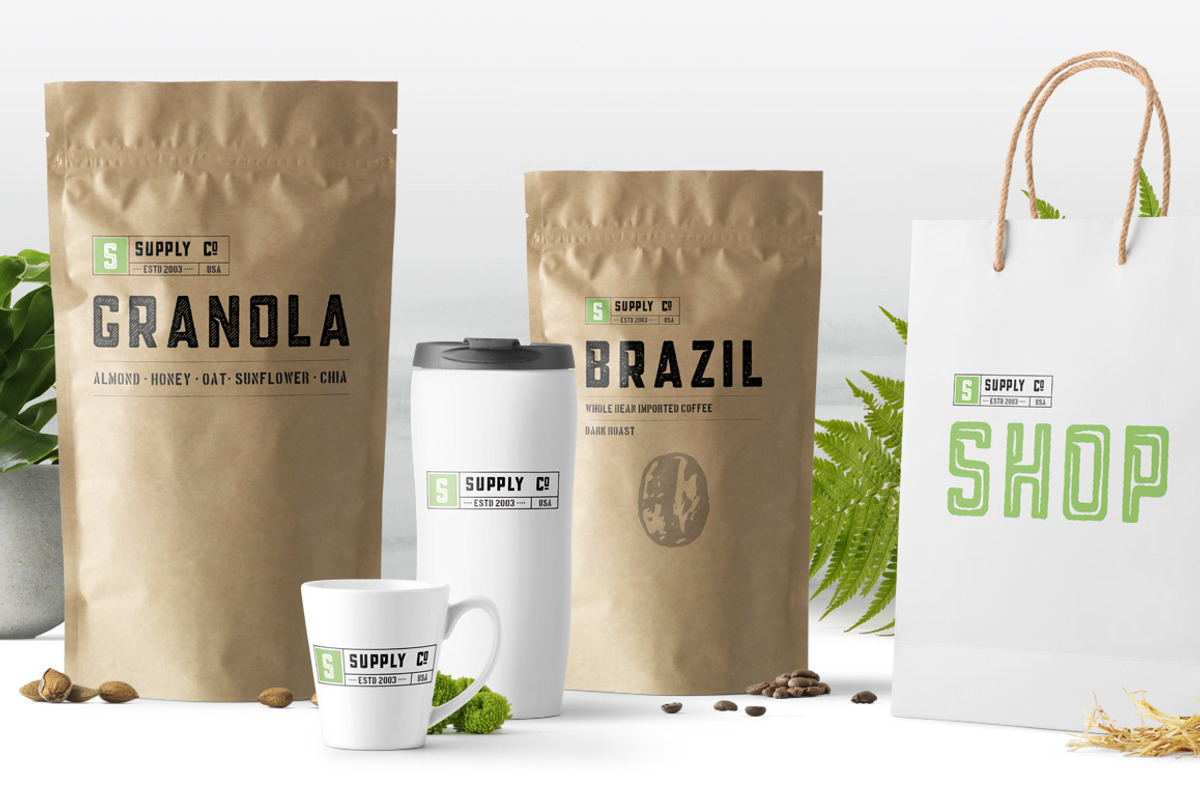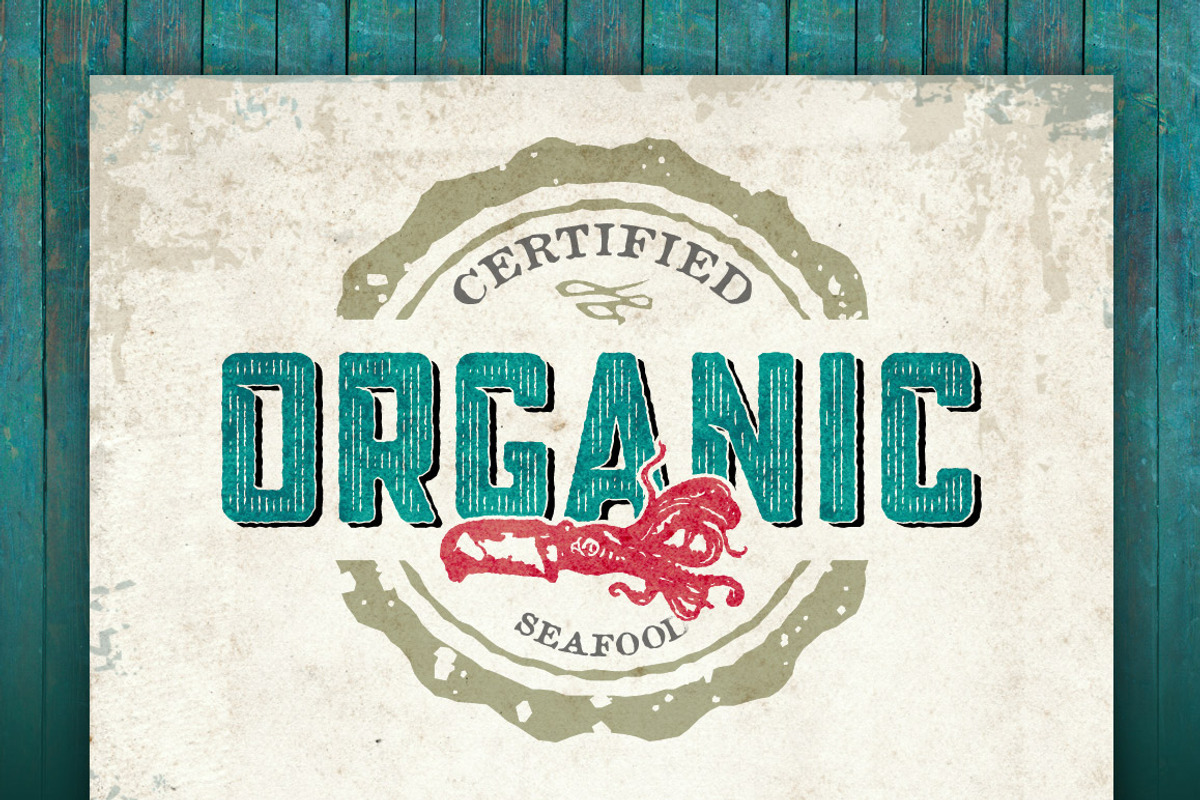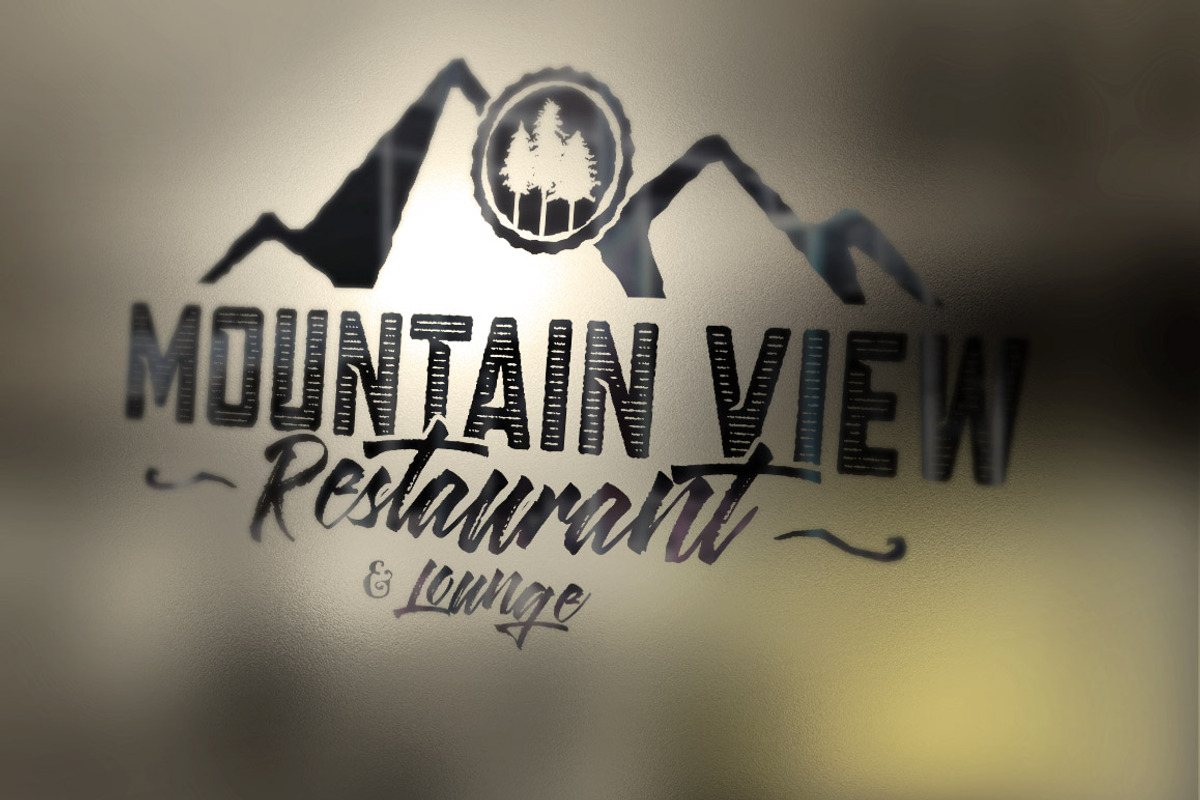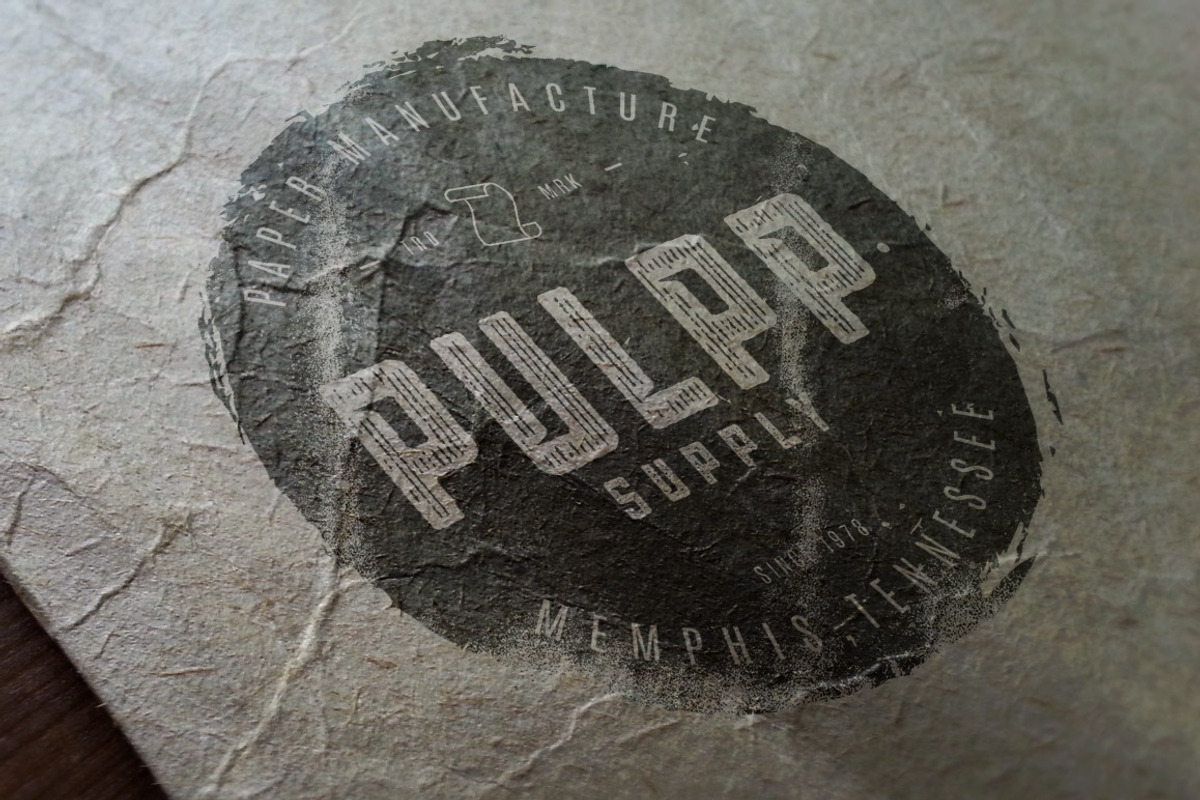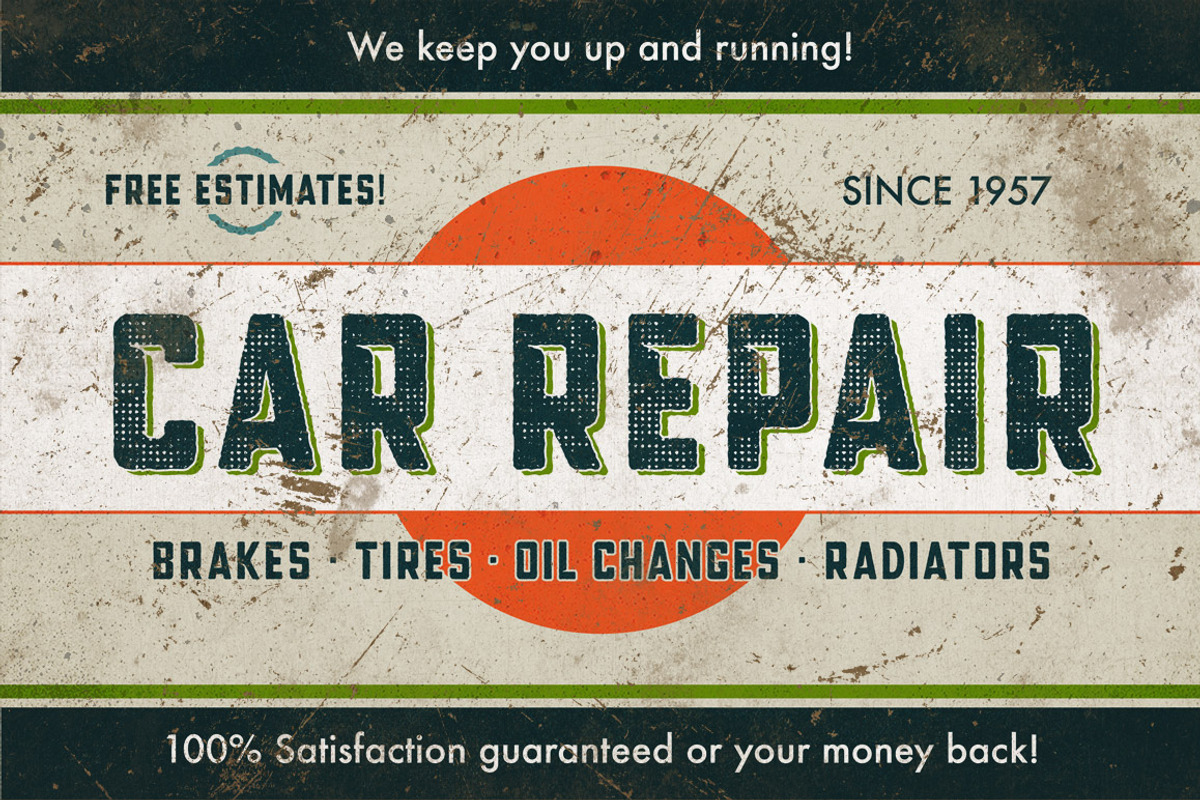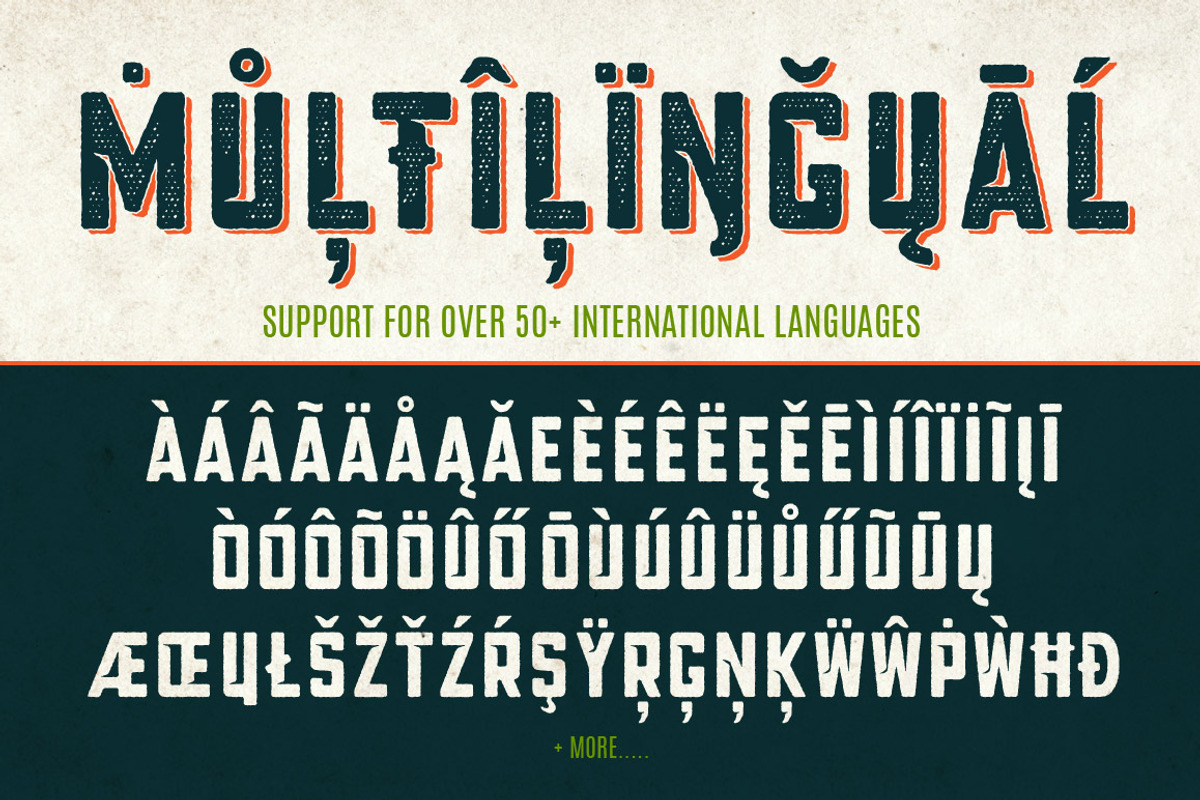
Blakstone Display Family
Blakstone is a useful Distressed/Vintage Display family of 25 fonts, perfect for your retro designs!
Borne of geometry, found-type and a genuine love of texture, Blakstone has a lot to offer the letterpress style type genre. With 25 styles including hatches, halftones, grunge, linen, inline, shadow, fills, and outlines, Blakstone becomes useful as a layered type system. Combine styles to control colors on different layers to achieve your desired effect or just use a single style to keep it simple.
Blakstone is full of open-type features including ligatures, discretionary ligatures, superscript numbers, subscript numbers, and automatic open-type fractions. Another great feature of Blakstone is its support for 130 International languages and dialects.
Blakstone has many uses in the design world including signage, branding, invites and cards, clothing design, the music industry, restaurant and grocery signage, coffee shops, the list goes on. Blakstone has a texture for any occasion.
Each font has 473 Glyphs including ligatures, discretionary ligatures, superscript numbers, subscript numbers, and automatic open-type fractions.
Font Styles included: (25)
- Blakstone
- Blakstone Inline
- Blakstone Hatch One
- Blakstone Hatch Two
- Blakstone Hatch Three
- Blakstone Halftone One
- Blakstone Halftone Two
- Blakstone Halftone Three
- Blakstone Halftone Four
- Blakstone Grunge Grid
- Blakstone Linen
- Blakstone Printed One
- Blakstone Printed Two
- Blakstone Outline
- Blakstone Outline Inline
- Blakstone Outline Hatch One
- Blakstone Outline Hatch Two
- Blakstone Outline Hatch Three
- Blakstone Outline Linen
- Blakstone Outline Halftone
- Blakstone Hatch One Fill
- Blakstone Hatch Two Fill
- Blakstone Hatch Three Fill
- Blakstone Inline Fill
- Blakstone Shadow